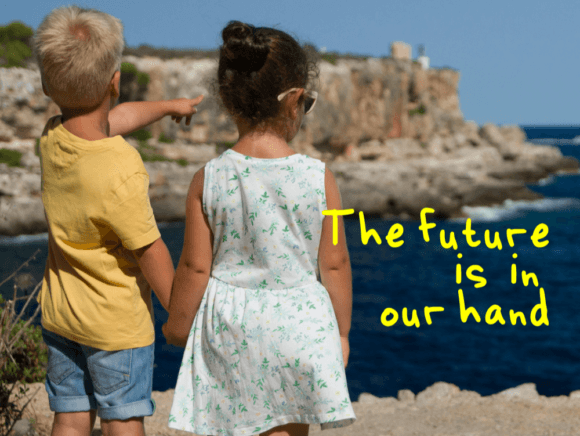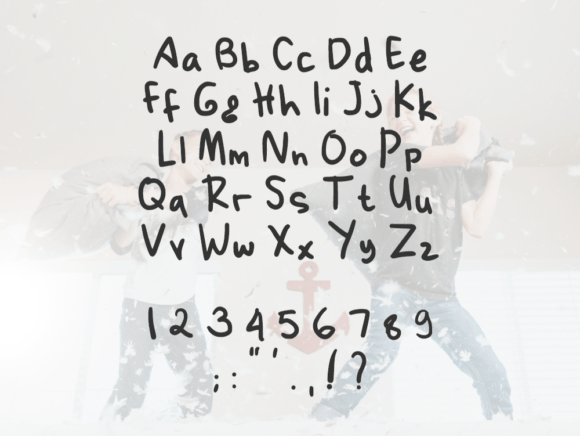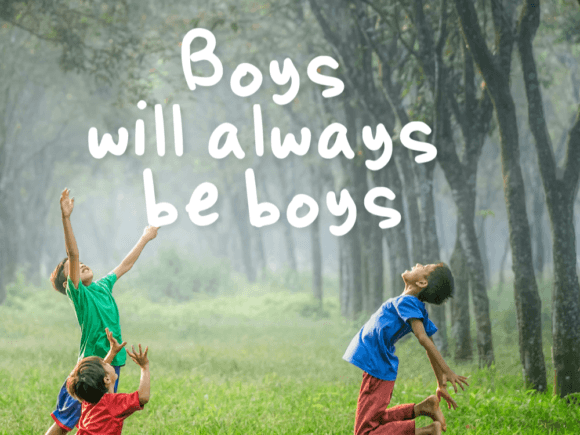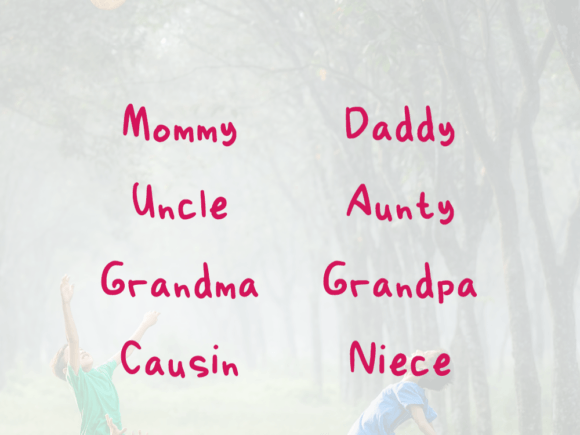
The Joy of Boys Handwriting Font: A Designer’s New Best Friend
I’ll never forget the time I was working on a project for a kids’ party invitation. I had the design all laid out, but something was missing – a font that felt playful, yet still easy to read. That’s when I stumbled upon Boys Handwriting font, and it instantly became the star of the show! 🎉
Boys Handwriting is a playful and fun font that looks like neat, casual handwriting. It’s perfect for adding a personal and friendly touch to projects like cards, posters, or kids’ activities. The letters are easy to read, giving it a cheerful and relaxed vibe.
An Honest Review: The Good and the Quirky
- ✨ Easy to read: Despite its casual feel, Boys Handwriting is surprisingly legible, even at smaller font sizes.
- ✅ Versatile: Perfect for kids’ projects, but also great for adding a personal touch to more adult designs, like greeting cards or invitations.
- 🎉 Fun and playful: The font’s energetic vibe is guaranteed to bring a smile to your face (and your audience’s).
- 🤔 Limited formal use: Let’s face it, this font is best suited for informal projects. It might not be the best choice for more formal designs, like business cards or resumes.
- ⚠️ Occasional glyph issues: Some users have reported issues with certain glyphs not displaying correctly. However, these issues are relatively rare and usually easily fixable.
The Story Behind Boys Handwriting
Boys Handwriting was designed with the intention of creating a font that felt like a friendly, casual conversation. The designer wanted to capture the essence of childhood scribbles, while still maintaining a level of legibility and sophistication. The result is a font that’s both playful and approachable.